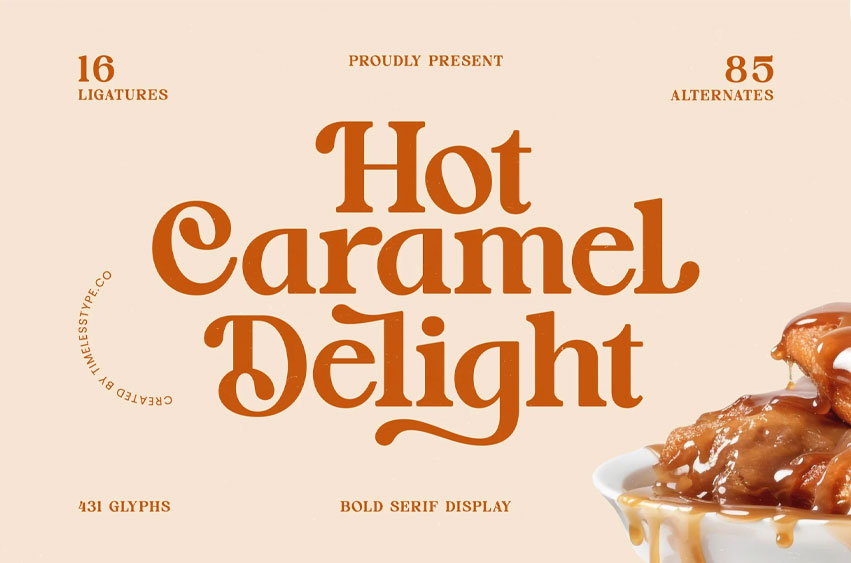
Hot Caramel Delight Font
Hot Caramel Delight Font is a Bold Serif Display Font crafted with smooth curves, soft contrast, and warm retro energy. Inspired by classic dessert packaging and cozy vintage branding, this typeface delivers a delicious blend of elegance and sweetness—perfect for logos, bakery brands, cafe menus, product labels, posters, and any design that needs a rich, nostalgic charm.
Featuring 16 ligatures and 85 alternates, Hot Caramel Delight gives designers endless freedom to build expressive custom lettering with flowing swashes, rounded terminals, and stylized serif forms. Its friendly shape and smooth readability make it ideal for both bold headlines and sophisticated display layouts.